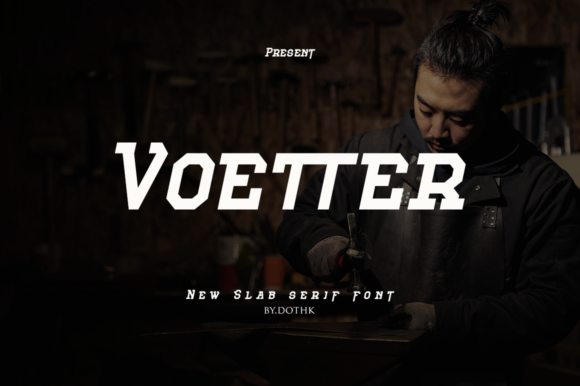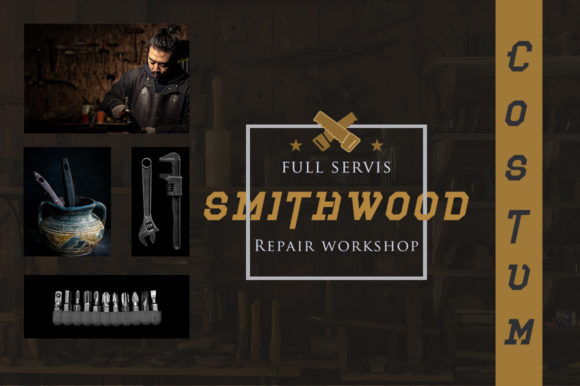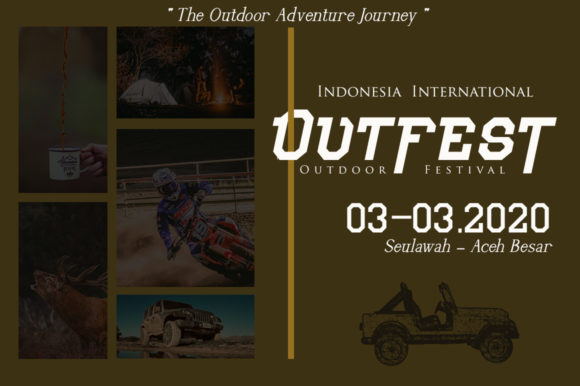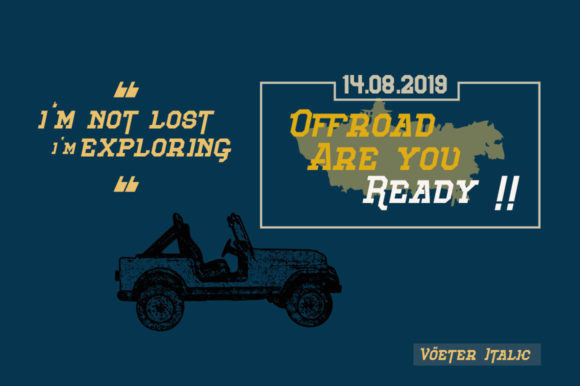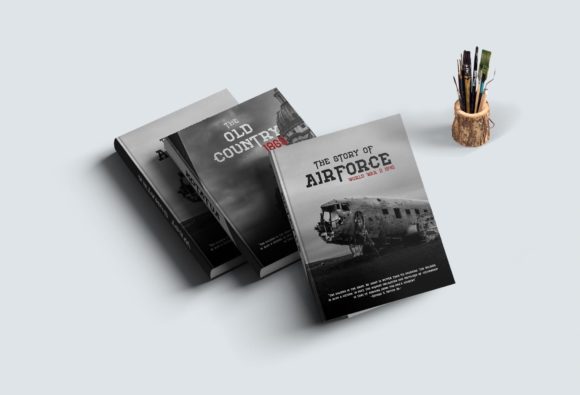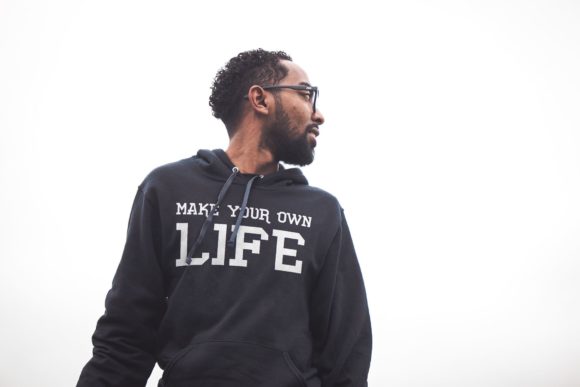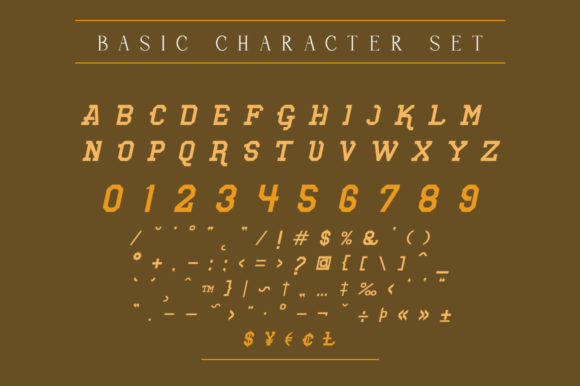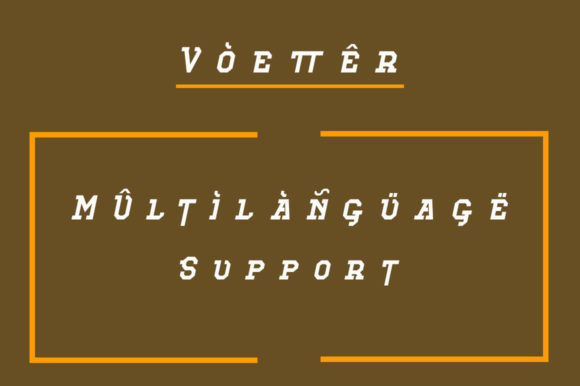
VOETTER FONT SPECIMEN
Voetter is a bold and chunky lettered slab serif font. No matter the topic, this font will be an incredibly asset to your fonts’ library, as it has the potential to elevate any creation.